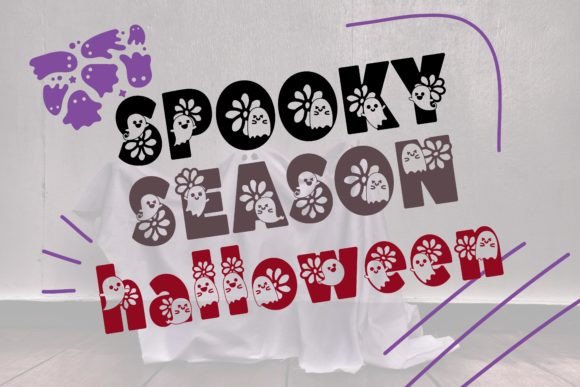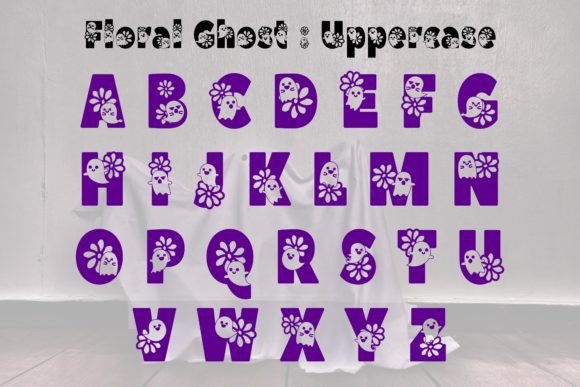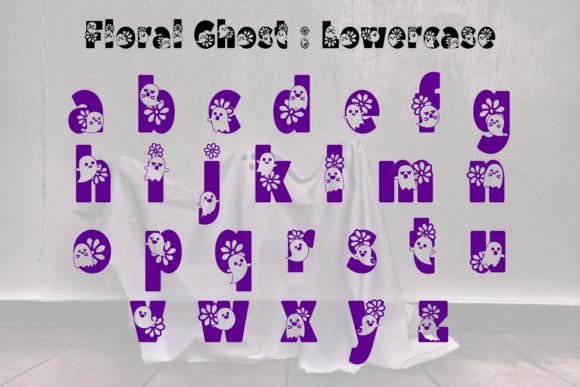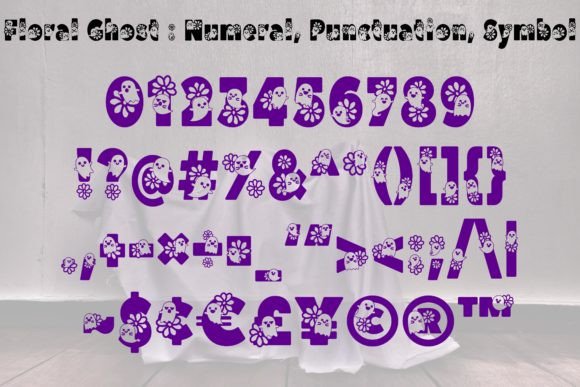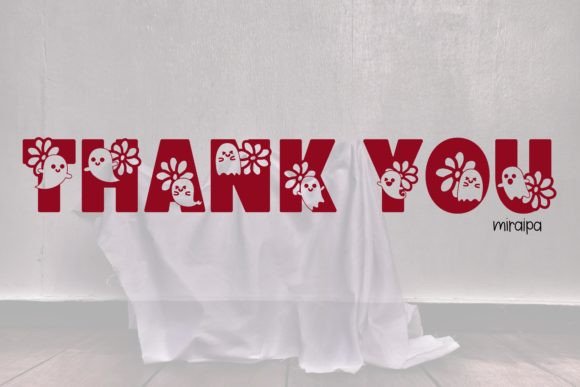
Introduction to Floral Ghost Font
As a designer, you’ve probably found yourself stuck at 11 PM on a project deadline, searching for the perfect design element to bring your creative vision to life. It’s those moments of frustration that often lead to serendipitous discoveries – and for me, that moment came when I stumbled upon the enchanting Floral Ghost Font. This whimsical and adorable decorative font is a treasure trove of inspiration, perfect for adding a touch of magic to your Halloween-related projects.
What sets Floral Ghost apart from other design resources is its unique blend of spooky charm and floral elegance. With its intricate details and high-quality design, this font is a must-have for any designer looking to add a touch of whimsy to their creative project. Plus, its transparent background makes it easy to layer and customize to fit your unique design aesthetic.
Key Features of Floral Ghost Font
- High-quality design resource ideal for creative projects and graphic designs.
- Available in a range of sizes, from 8 to 72 points, making it suitable for various design applications.
- Features a unique, hand-drawn design with intricate floral patterns and subtle texture, adding a touch of elegance to any project.
- Resolution: 300 DPI, ensuring high-quality output in print and digital formats.
Honest Review: Floral Ghost Font
As a designer, I’m always on the lookout for unique and versatile design resources to elevate my creative projects. Recently, I stumbled upon the Floral Ghost Font, and I must say it’s a real gem.
What works well about this font is its delicate, ethereal quality that adds a touch of whimsy to any design. The high-quality design and transparent background make it easy to use and manipulate in various creative projects. ✨ The font’s versatility is also impressive, as it can be used for a range of applications, from wedding invitations to digital art.
However, there are a few limitations to consider. ⚠️ The font may not be suitable for more formal or corporate designs, as its delicate nature may not convey the desired level of professionalism. Additionally, the font’s intricate details may be lost when scaled up or used in low-resolution applications.
Overall, I’m impressed with the Floral Ghost Font’s unique charm and versatility. While it may have some limitations, it’s a great addition to any designer’s toolkit, especially for creative projects that require a touch of elegance and whimsy.
The Floral Ghost Font is ideal for various design projects, including wedding invitations, baby shower decorations, and social media graphics. Its delicate and elegant design makes it perfect for feminine and whimsical themes.